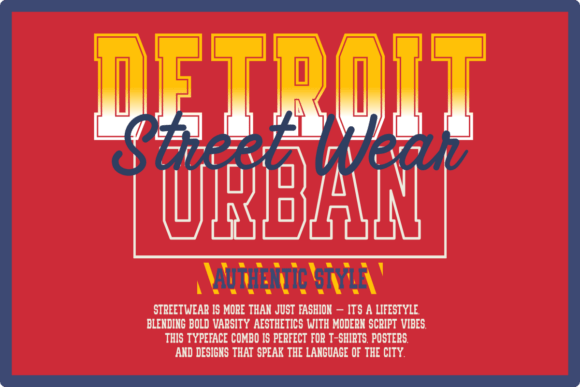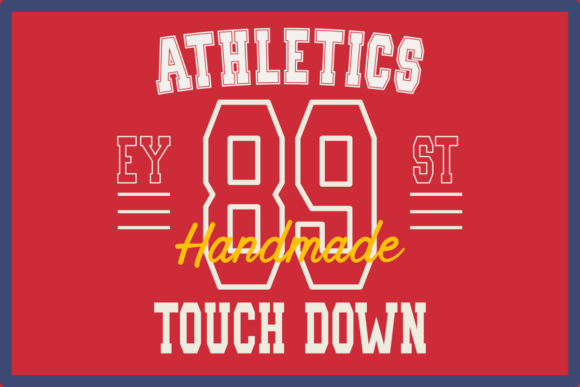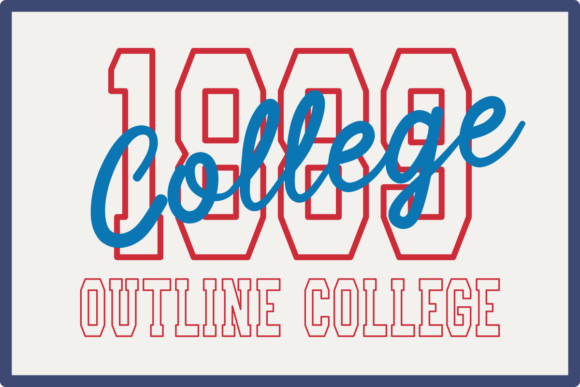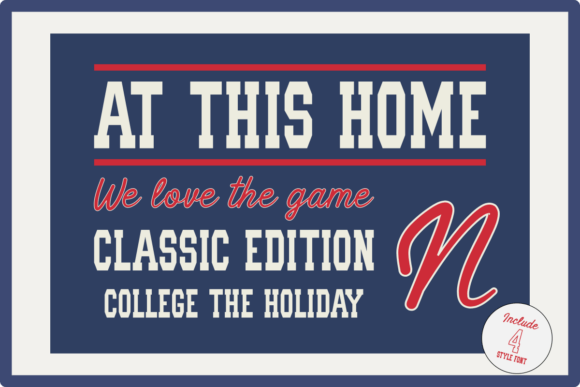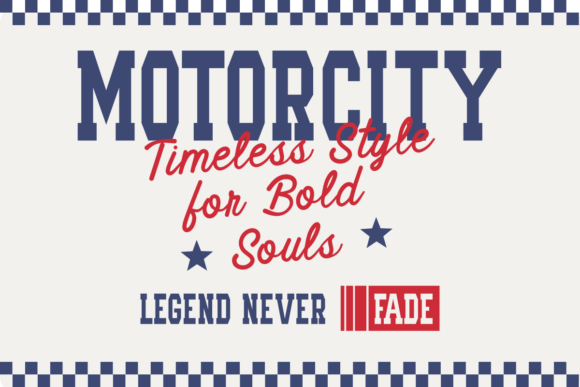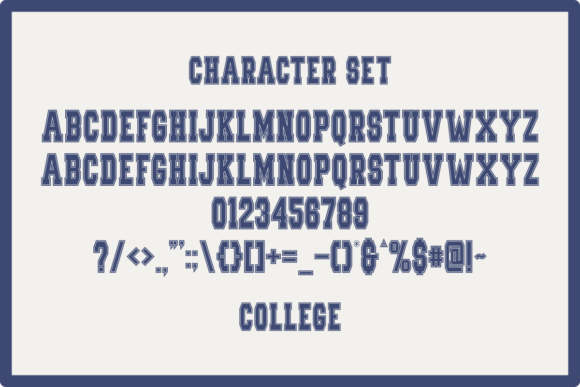
Introducing College The Holiday Font: A Bold Varsity Font for Timeless Designs
Are you looking for a font that can add a strong, classic, or modern touch to your creative projects? Look no further than College The Holiday font, a bold varsity font inspired by retro sports typography. This versatile font features 4 unique styles: Regular, Outline, Inline, and Handwritten Script, making it perfect for a wide range of design applications.
Retro Sports Typography Inspiration
College The Holiday font draws inspiration from the classic typography of retro sports, evoking memories of vintage jerseys, posters, and logos from the past. The font’s bold and timeless design makes it an excellent choice for designers and crafters looking to add a touch of nostalgia to their work.
4 Unique Styles to Suit Your Design Needs
College The Holiday font offers 4 distinct styles to cater to different design requirements:
- Regular: A bold and sturdy font perfect for headlines, titles, and emphasis.
- Outline: A outlined version of the font, ideal for creating eye-catching designs, logos, and graphics.
- Inline: A stylish inline version, adding a touch of sophistication to your designs.
- Handwritten Script: A flowing script font, perfect for adding a personal touch to your work.
College The Holiday font is an incredibly versatile font that can be used for a wide range of design projects, including:
- Jersey Design: Create stunning jerseys for sports teams, clubs, or events.
- Poster Design: Design eye-catching posters for concerts, festivals, or campus events.
- Vintage Logos: Create retro-style logos for brands, businesses, or personal projects.
- Campus Event Materials: Design promotional materials for university events, such as flyers, brochures, or banners.
- Merchandise Branding: Create branded merchandise, such as t-shirts, hats, or water bottles, with a bold and timeless design.
Why Choose College The Holiday Font?
College The Holiday font offers a unique combination of classic and modern design elements, making it an excellent choice for designers and crafters. Here are just a few reasons why you should consider using this font:
- Timeless Design: The font’s retro-inspired design ensures it will remain timeless and relevant for years to come.
- Versatility: With 4 unique styles, you can use College The Holiday font for a wide range of design projects.
- Ease of Use: The font is easy to read and works well in both digital and print formats.
- High-Quality: The font is designed with high-quality craftsmanship, ensuring crisp and clean lines.
Get Creative with College The Holiday Font
In conclusion, College The Holiday font is a versatile and bold varsity font that is perfect for adding a strong, classic, or modern touch to your creative projects. With its 4 unique styles and endless design possibilities, it’s an excellent choice for designers and crafters looking to create timeless and eye-catching designs.